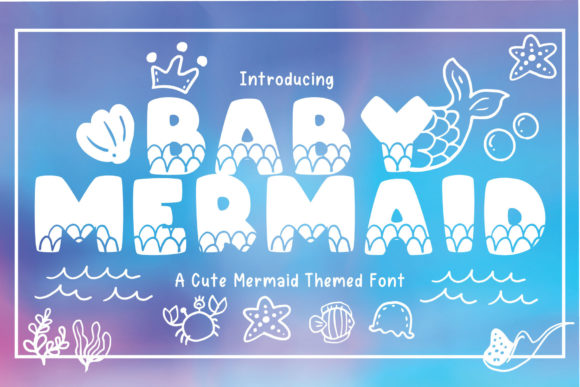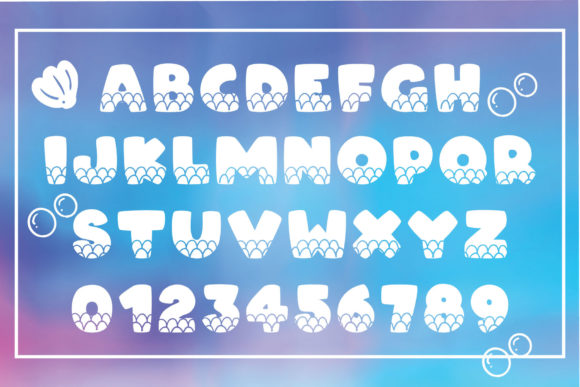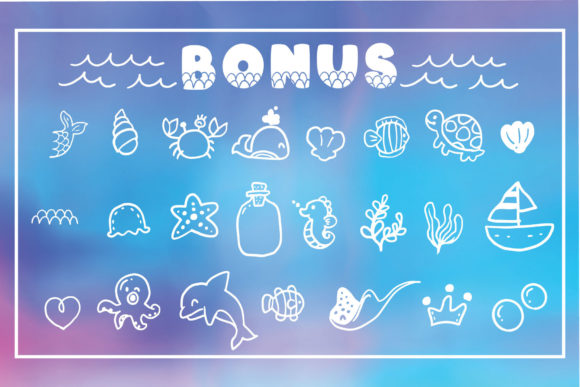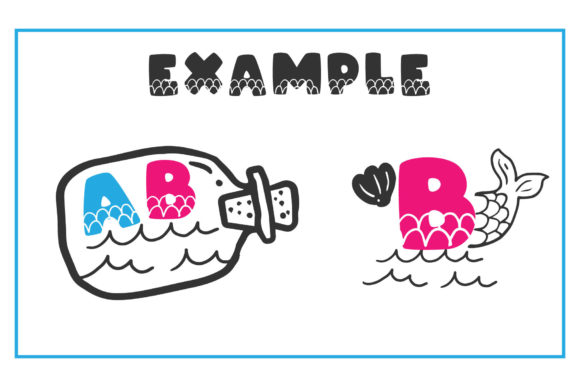
Baby Mermaid Font
About the Baby Mermaid Font
Explore the possibilities with Baby Mermaid Font, a font that offers both beauty and functionality. Baby Mermaid is a cool and friendly display font. Add this playful and chunky lettered display font to your creations and notice how they instantly come to life.
Baby Mermaid’s playful, chunky style is ideal for headlines, short titles, logos, and packaging design where a friendly, approachable feel is desired. It works exceptionally well for children’s products, branding for playful businesses, and projects needing a touch of whimsy. However, its boldness and lack of fine detail make it unsuitable for body text or UI elements requiring high readability at smaller sizes. Extended use could quickly become visually overwhelming.
To complement its friendly personality, consider pairing Baby Mermaid with a clean sans-serif like Open Sans for body text or a slightly more geometric sans-serif for a modern contrast. For a more whimsical feel, a script font with a relaxed, handwritten quality could also work well. Avoid pairing it with overly ornate or thin fonts, which would clash with its chunky character.
The font projects a friendly, approachable, and slightly mischievous personality, making it a great choice when aiming for a lighthearted yet memorable design. Its inherent boldness ensures high visual impact, but careful consideration of its limitations ensures effective application.
Baby Mermaid Font Usage Examples
Baby Mermaid Font Example